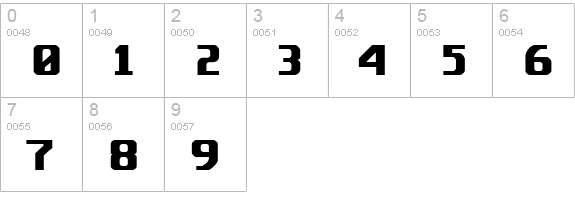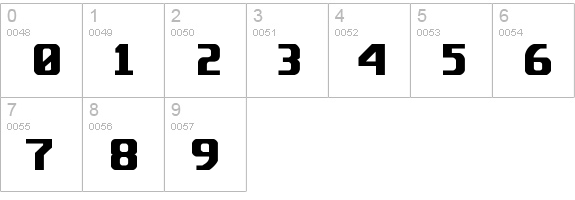
Berkelium Type Font Details
Berkelium Type font is a versatile and modern typeface that exudes sophistication and elegance. With its clean lines and contemporary design, Berkelium Type is perfect for a wide range of design projects, from branding to editorial design. This font offers a unique blend of sleekness and readability, making it a top choice for designers looking to make a bold statement. Berkelium Type is available for free download at FontsMarket.com, allowing you to elevate your design projects without breaking the bank. Don't miss out on this must-have font that will surely set your work apart from the rest.